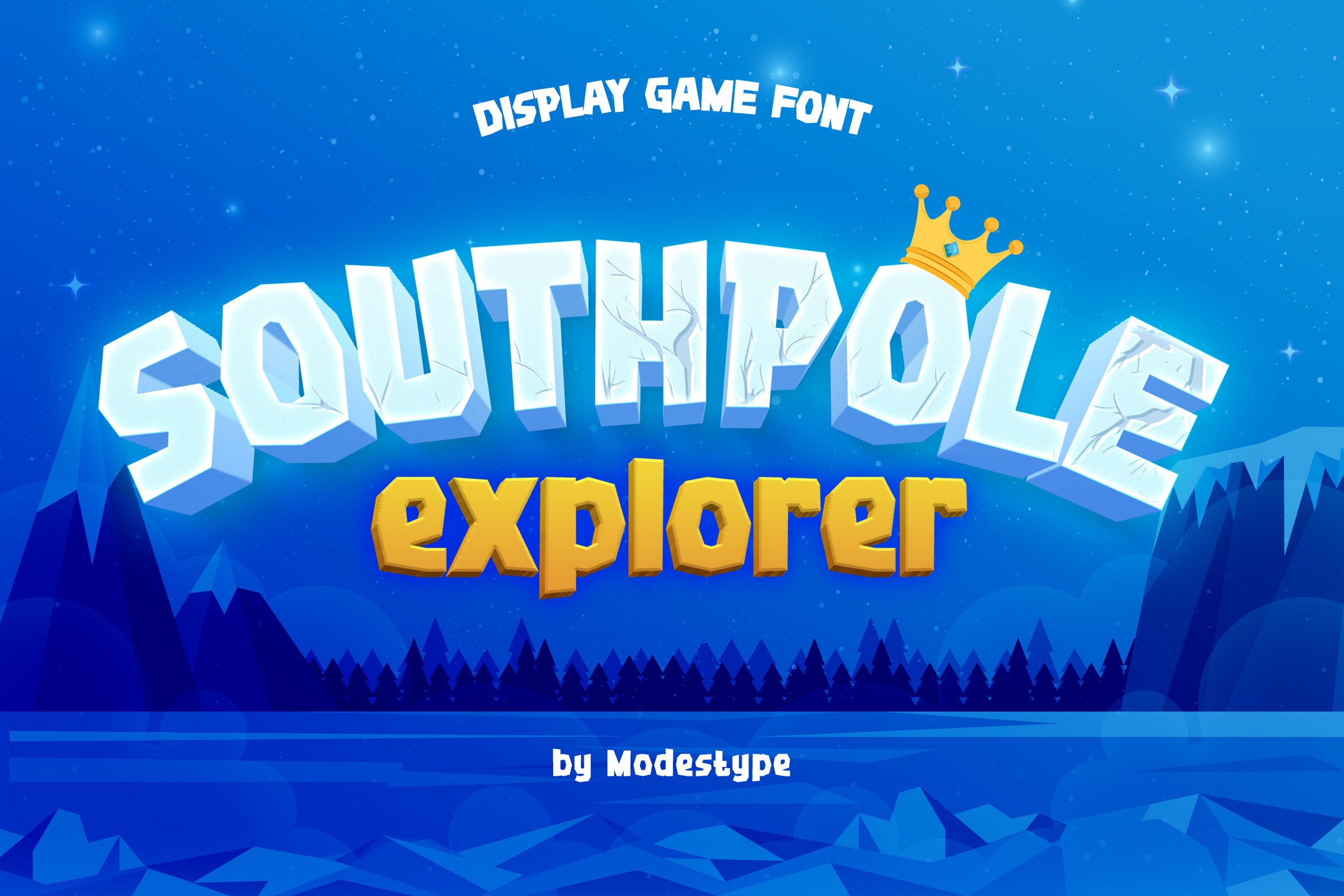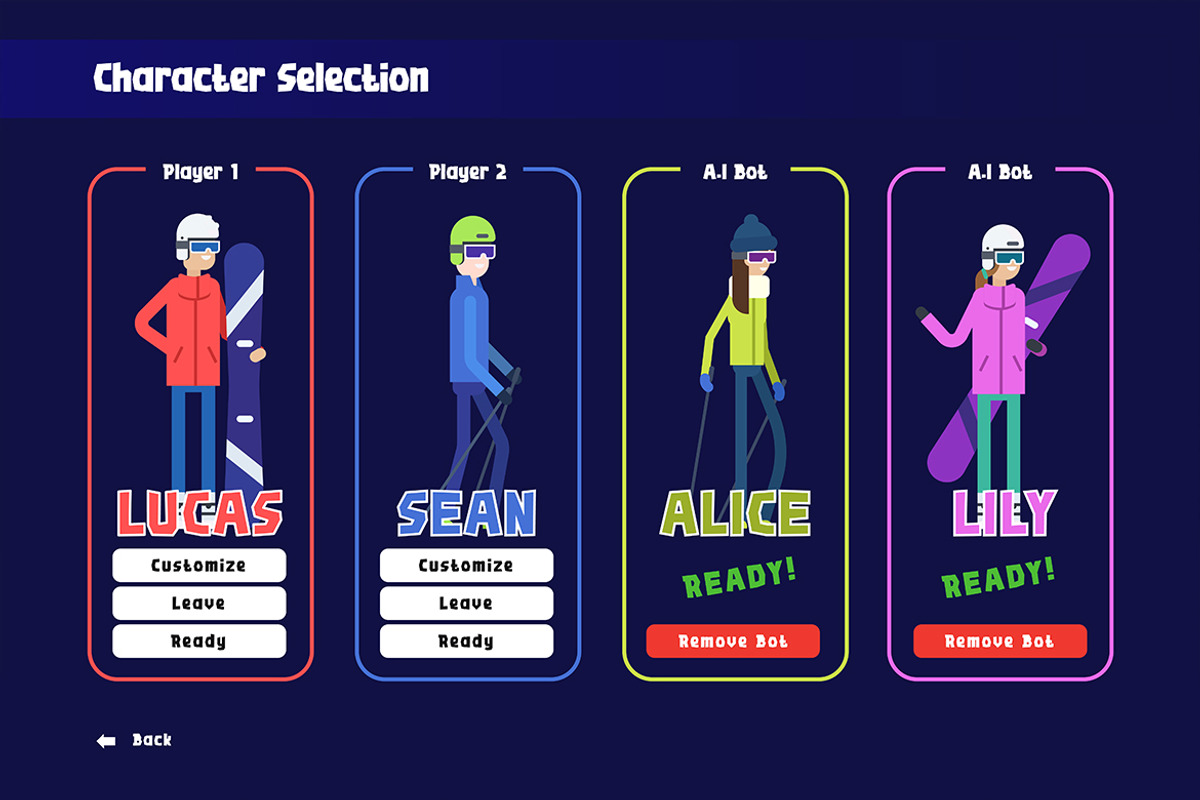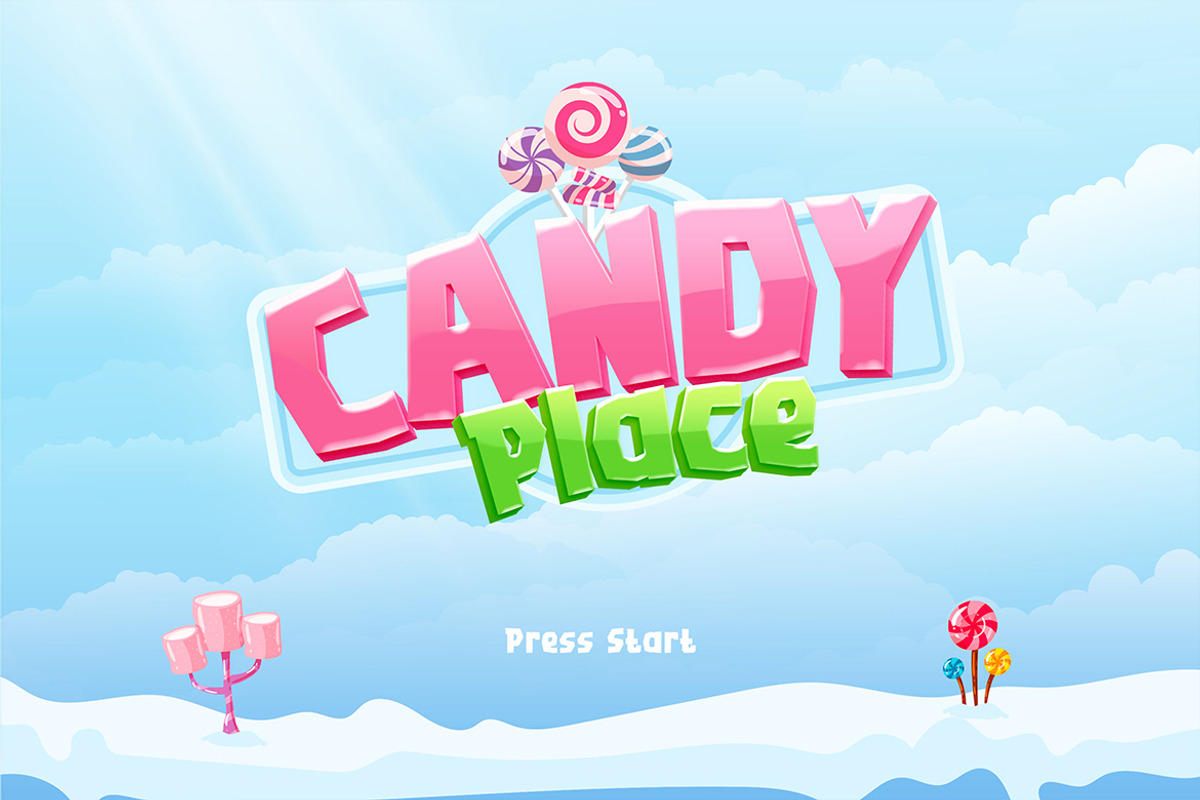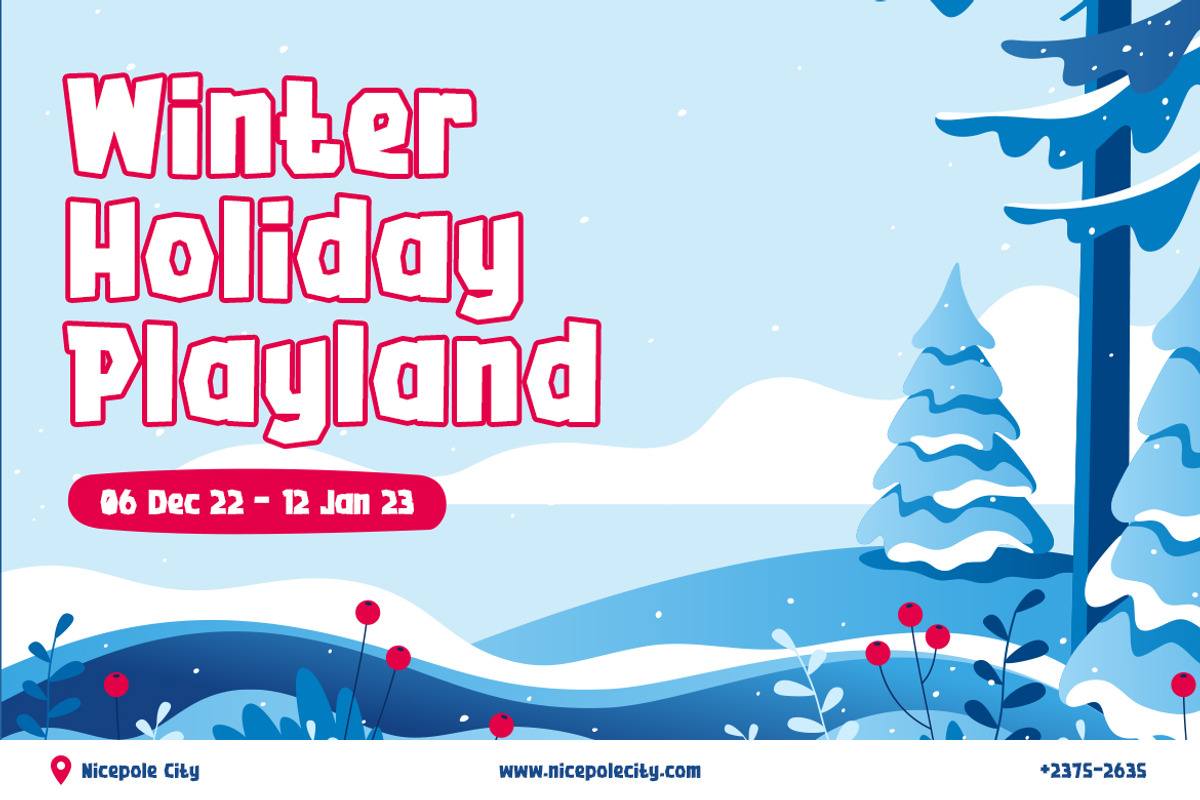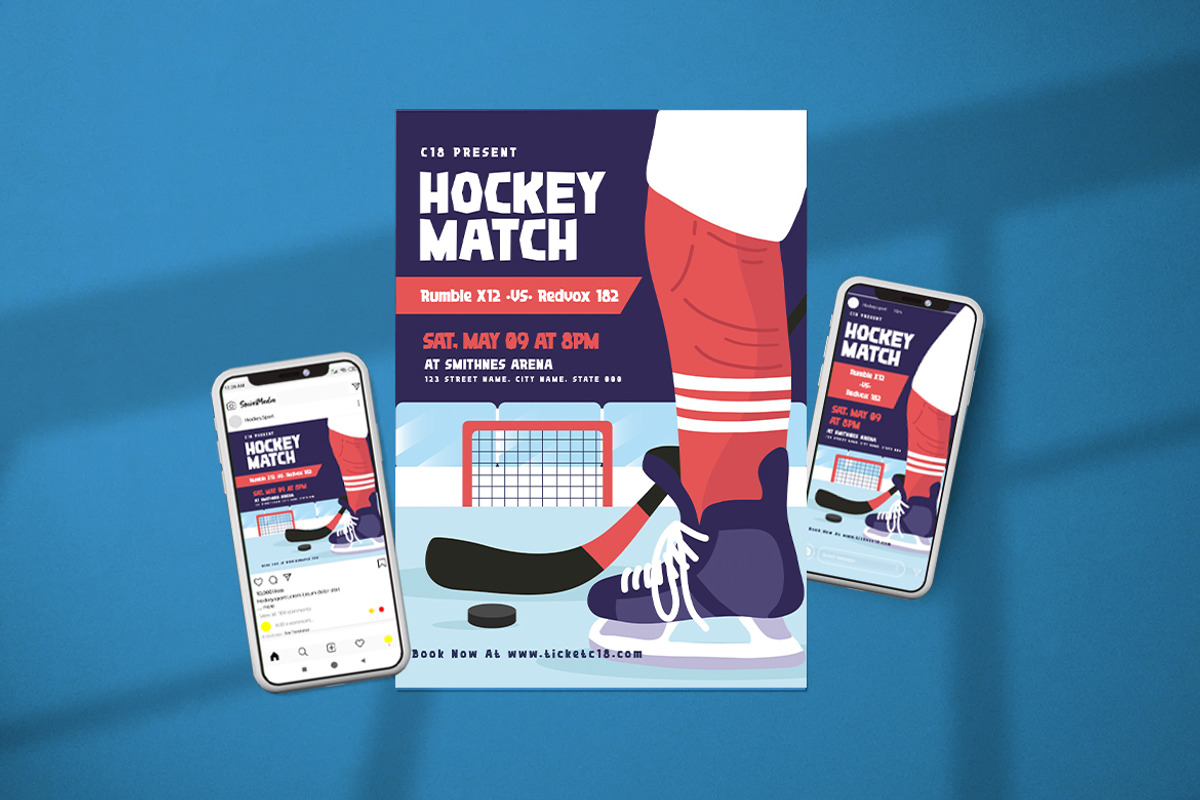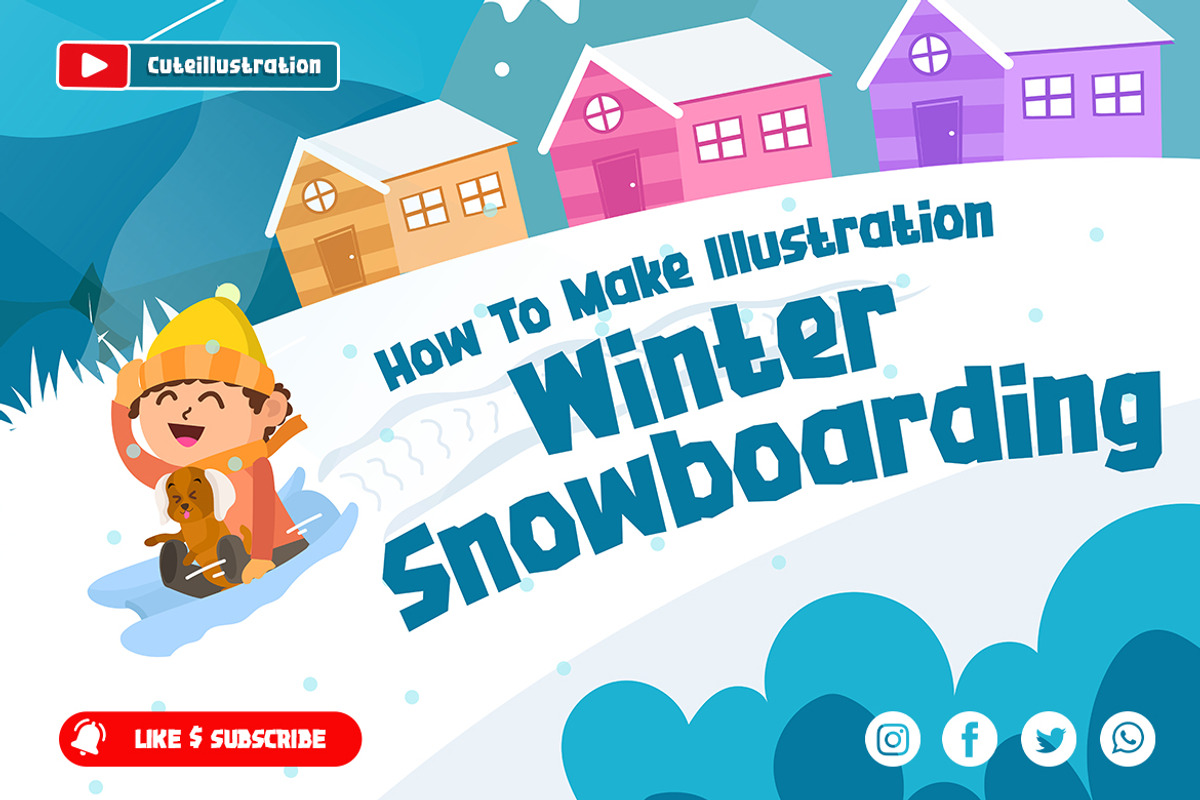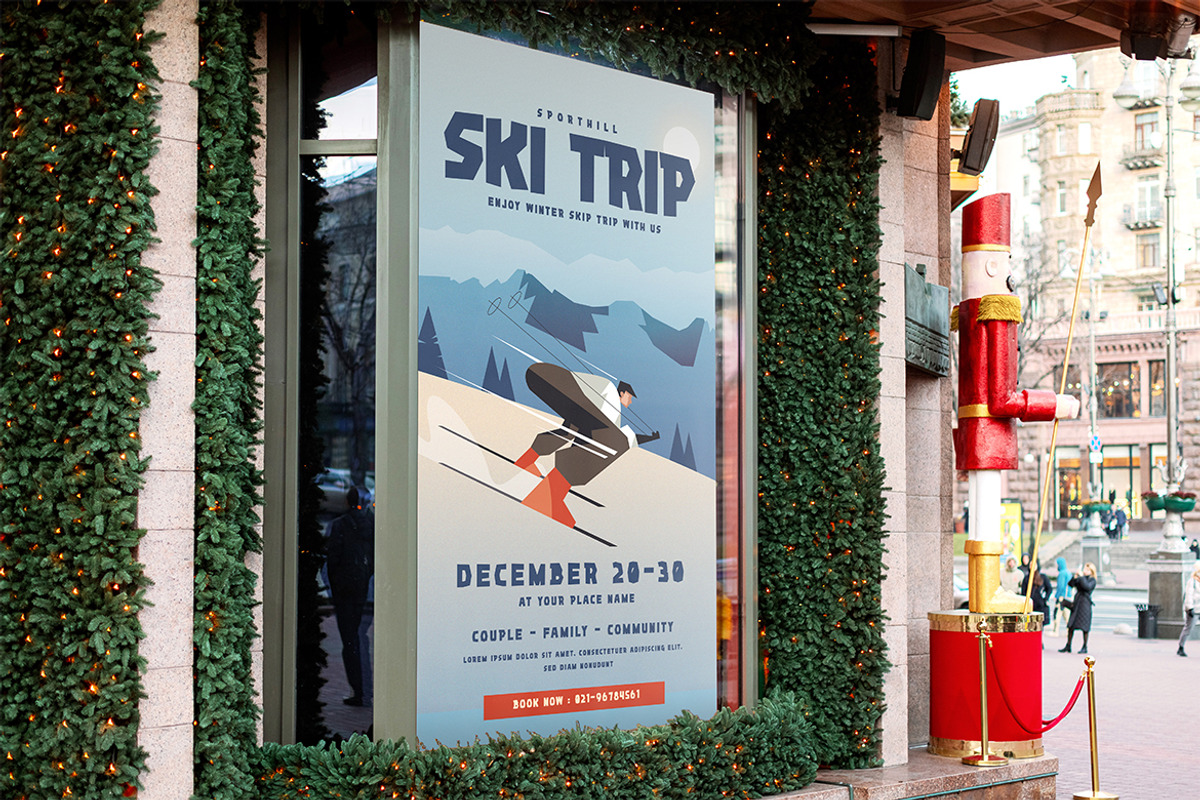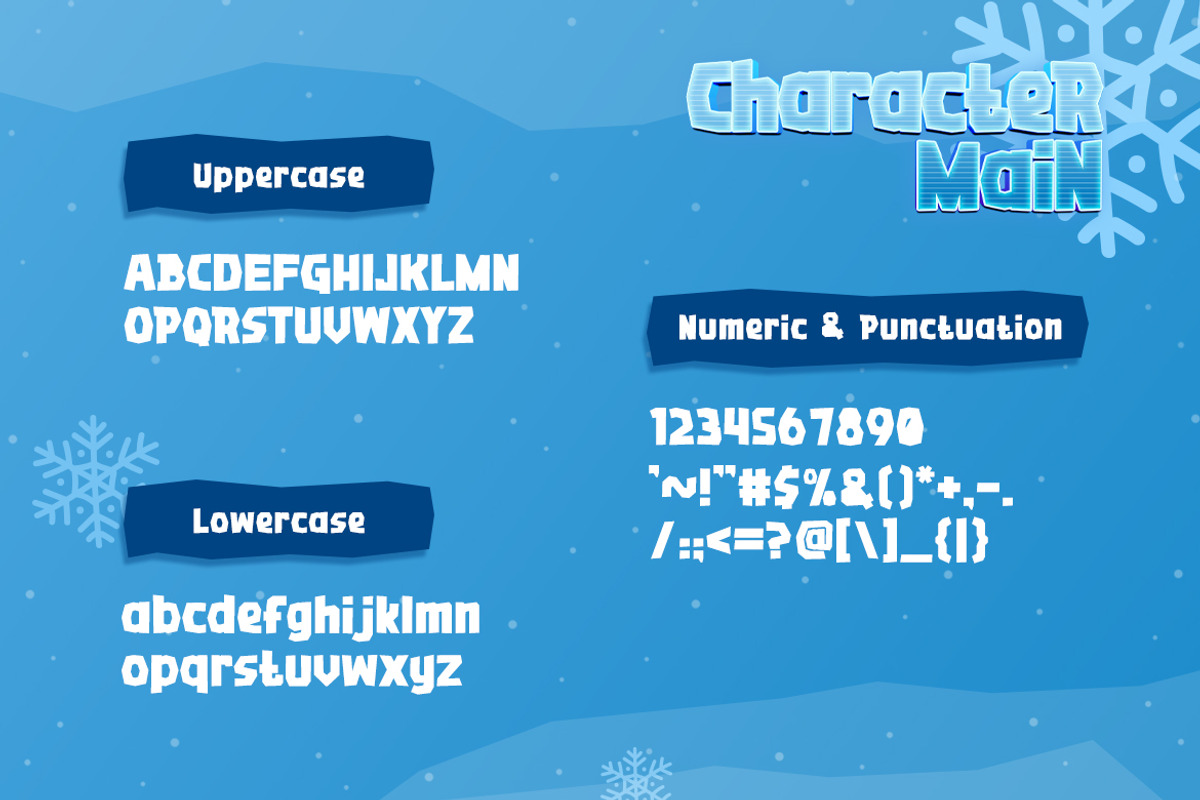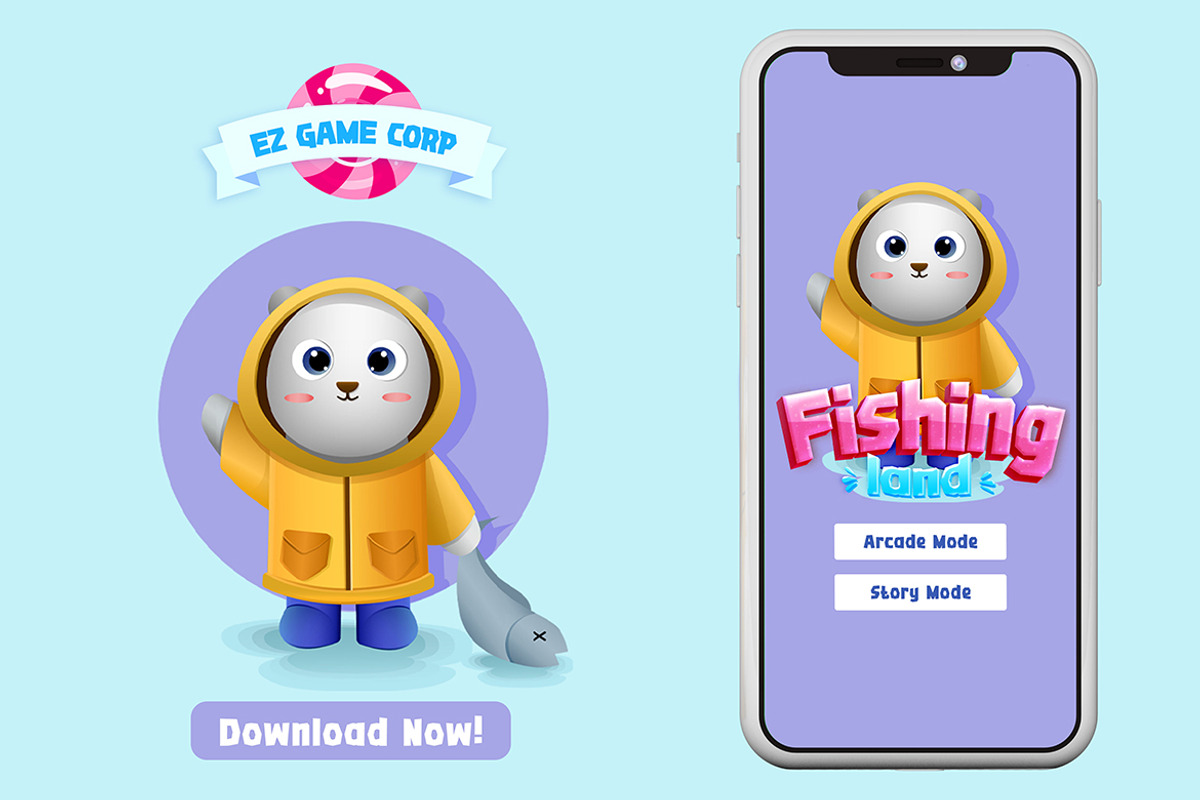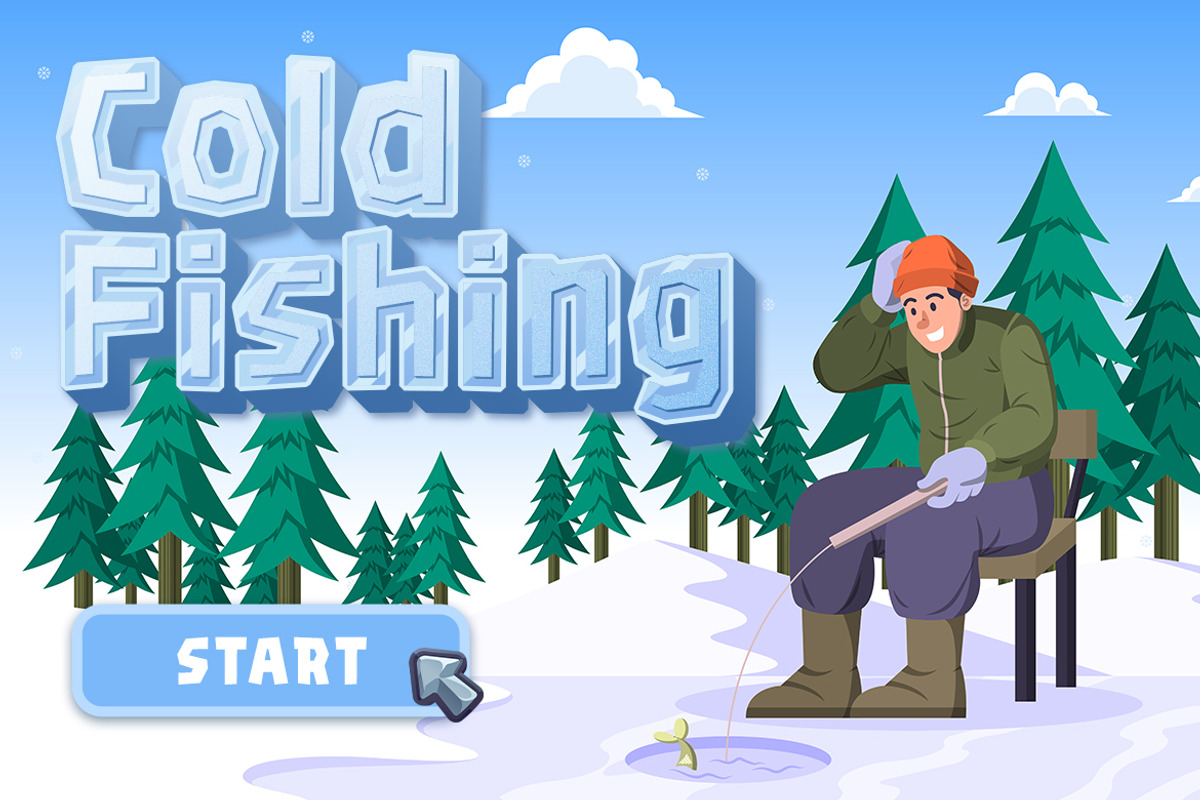
Southpole Explorer - Frozen Font
Southpole Explorer - Gaming Font
The jagged shape is look like a split of an iceberg that cut into an alphabet shape.
Southpole Explorer is a perfect match for any winter poster, online games, teens event poster, school supplies font, poster, movie title, youtube covers, youtube thumbnails, social media page covers and all snow related event.